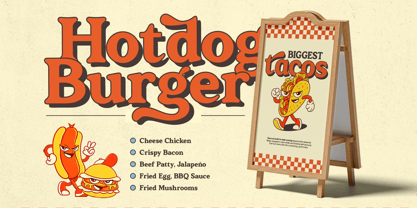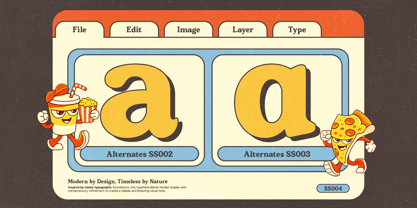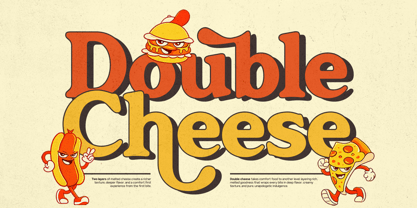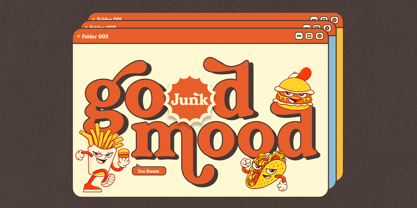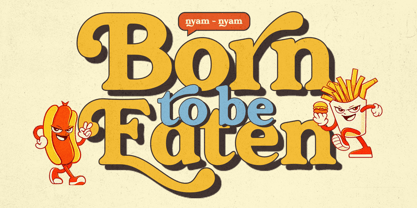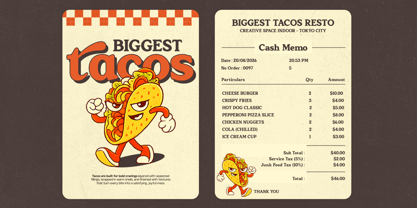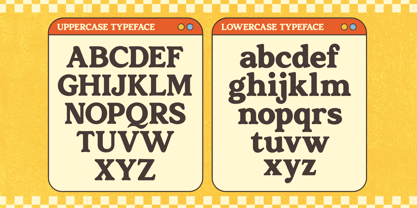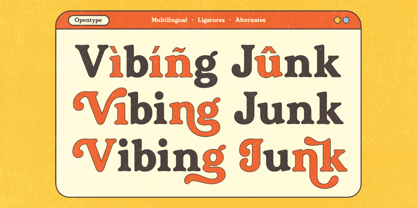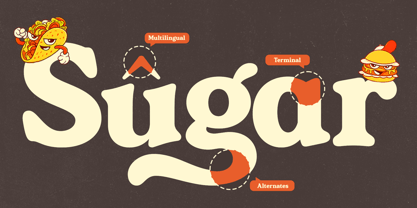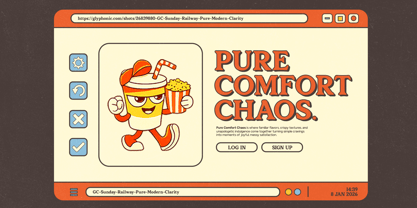
GC Sunday Railway
by Onyx Studio
The GC Sunday Railway Font Family was designed by Muhammad Hafiizh Solana and published by Onyx Studio. GC Sunday Railway contains 2 styles and family package options. More about this family
GC Sunday Railway - Classy Retro Serif is a refined retro serif typeface inspired by classic railway signage, vintage travel posters, and timeless editorial typography. Blending nostalgic charm with clean modern structure, this font delivers a classy, confident voice that feels both warm and authoritative. Designed for bold headlines and elegant branding, GC Sunday Railway is perfect for vintage-style logos, packaging, café menus, editorial layouts, poster designs, and premium retro visual identities. Its strong serif details and balanced proportions make every word feel iconic—like a timeless destination printed on an old railway ticket. Features: - Uppercase & Lowercase - Numbers & Punctuation - Classy Retro Serif Construction - Multilingual Support (170+ Languages) Bring timeless retro elegance, strong character, and classic travel-inspired style to your typography with GC Sunday Railway - Classy Retro Serif